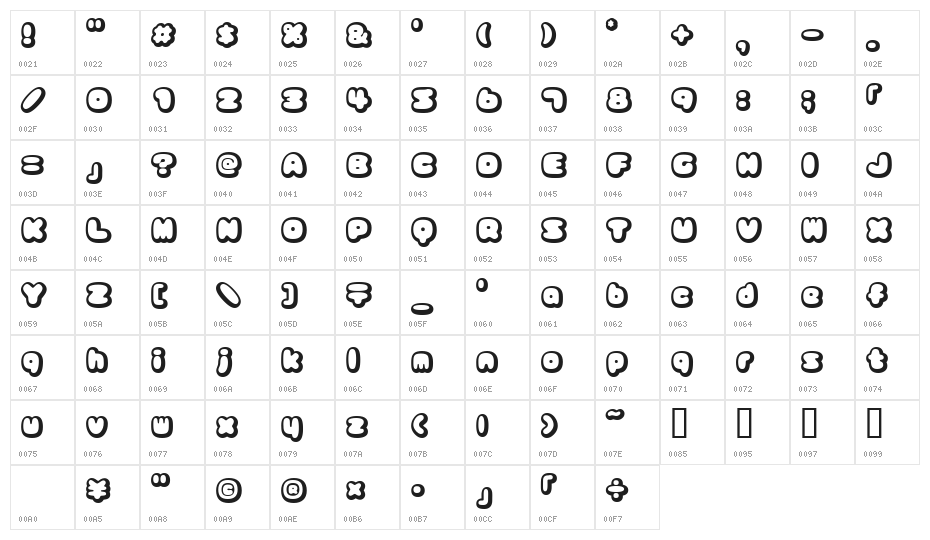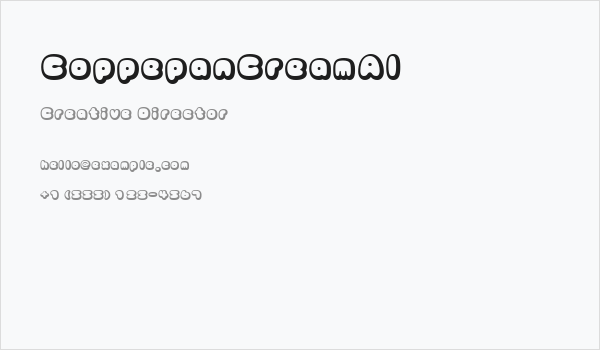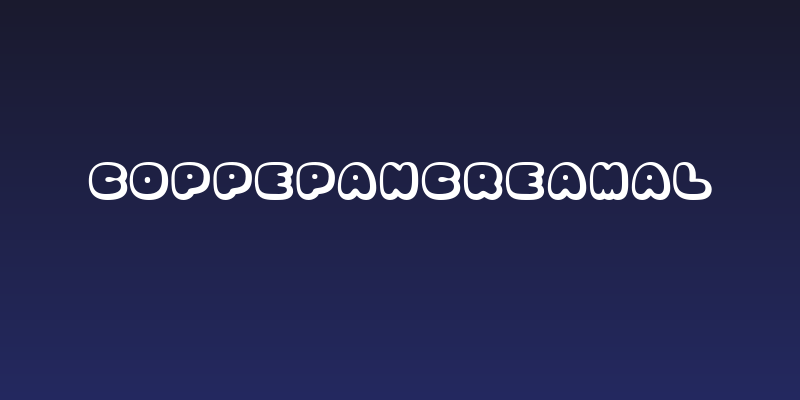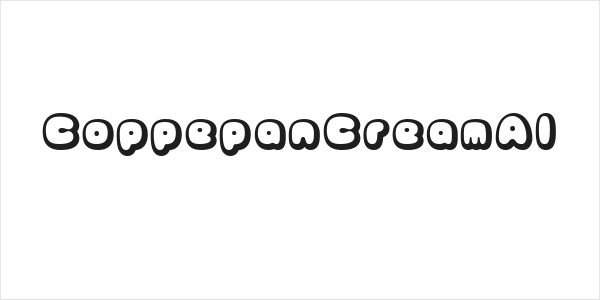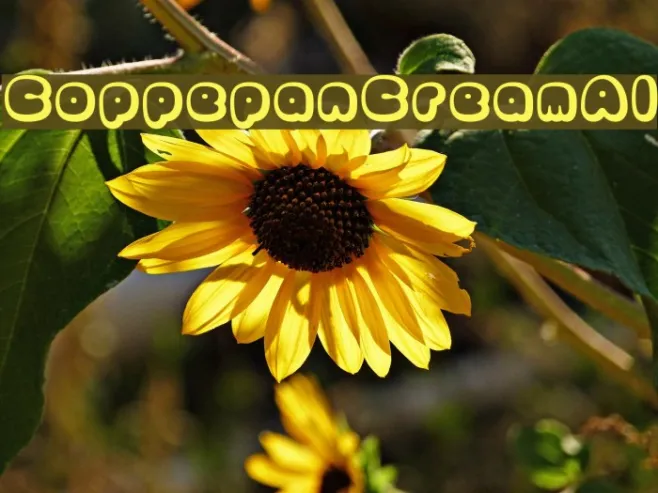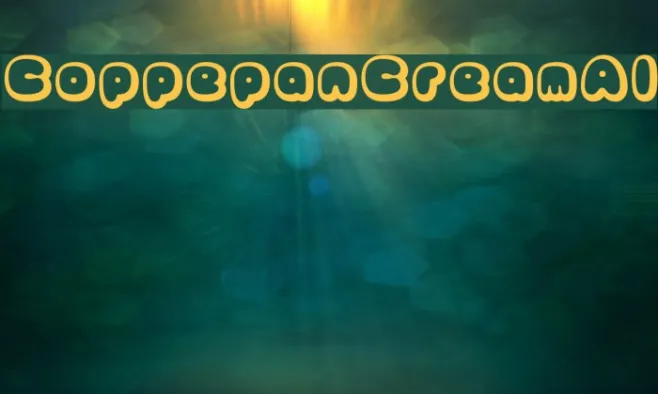
CoppepanCreamAl Font
CoppepanCreamAl Description
This playful and bubbly font features rounded, bold characters with a thick outline, giving it a cartoonish and friendly appearance. The letters are uniform in height and width, creating a cohesive and balanced look. The font's whimsical style is accentuated by its smooth curves and lack of sharp edges, making it ideal for projects that require a fun and approachable aesthetic. The numbers and special characters maintain the same playful design, ensuring consistency across all text elements.
| Overall Style | Playful, Cartoonish, Fun |
| Proposed Projects | Ideal for children's books, playful branding, party invitations, and cartoon-themed designs. |